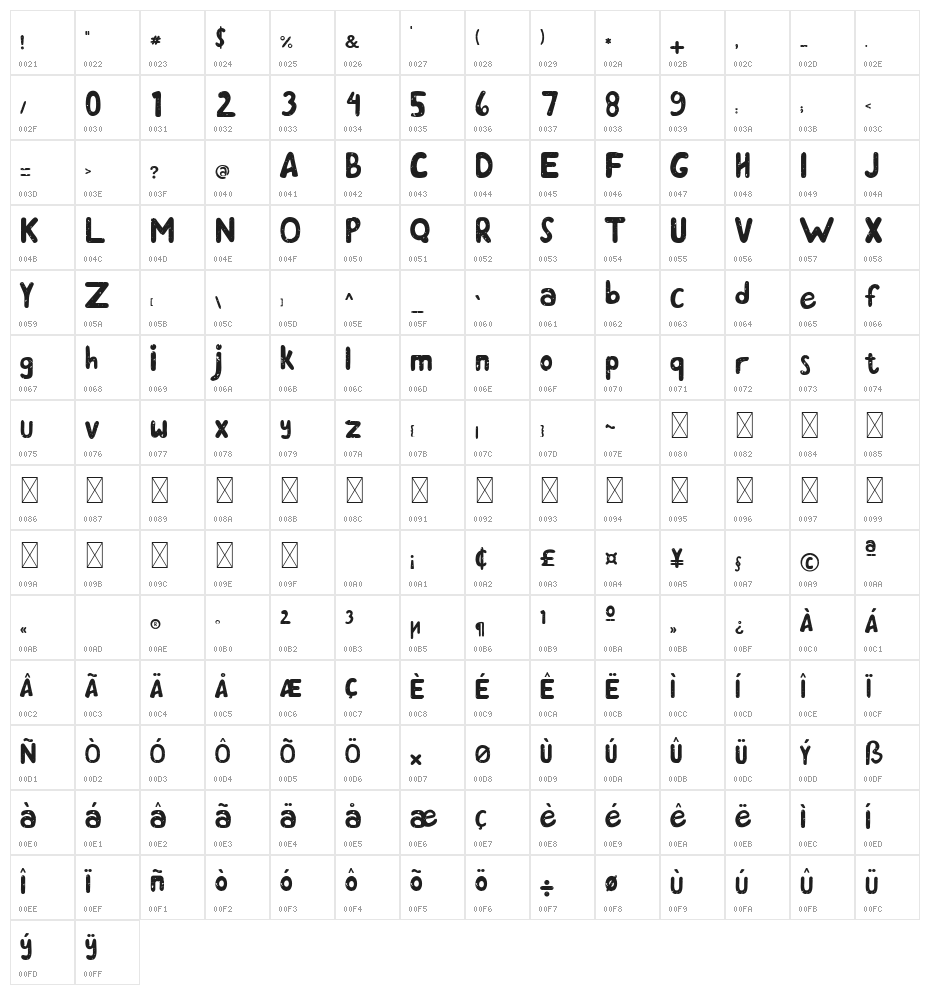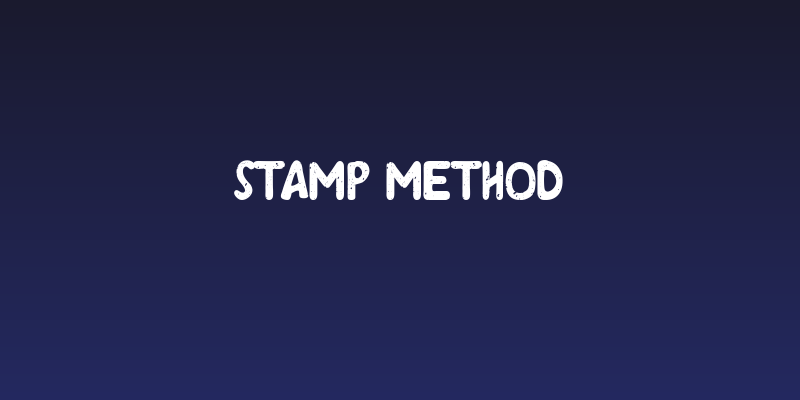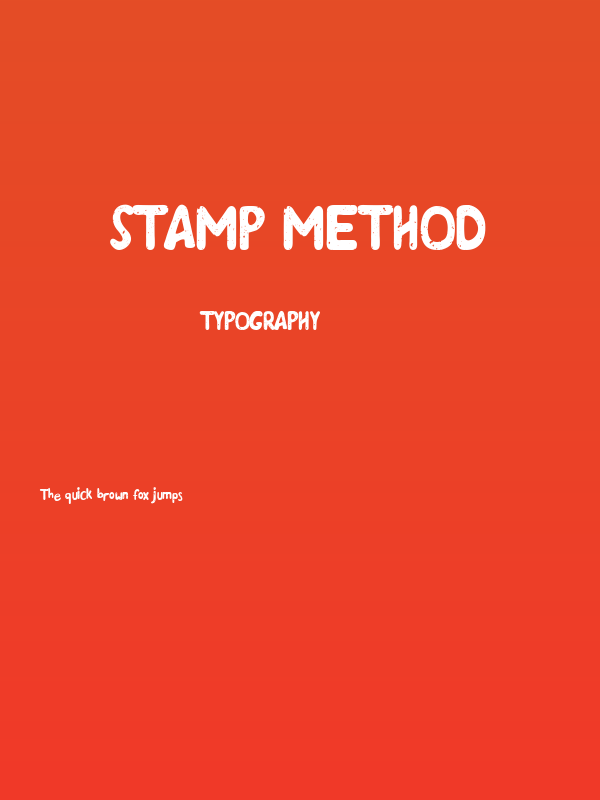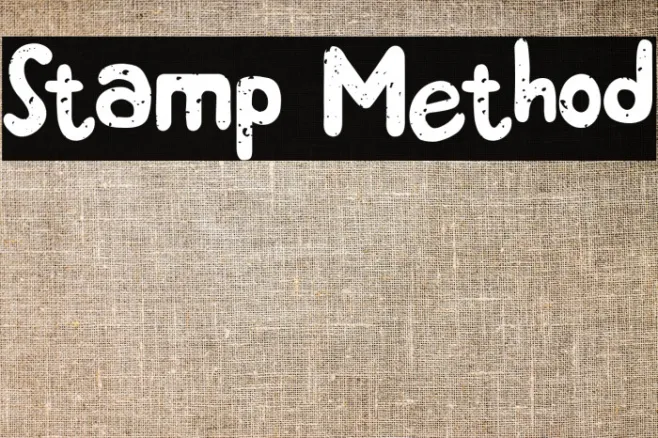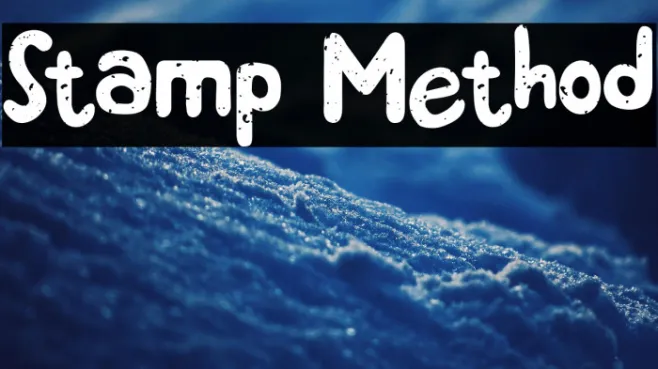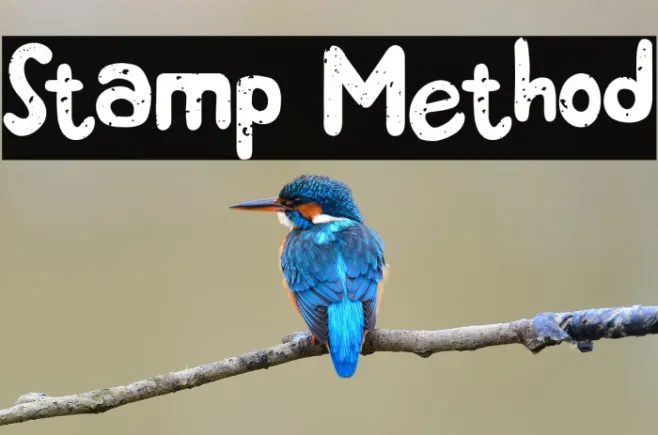
Stamp Method Font
Stamp Method Description
This font features a bold and playful design with a distressed texture that gives it a vintage, worn-out look. The characters are rounded and slightly irregular, adding a handcrafted feel. The uppercase and lowercase letters maintain a consistent style, with a uniform thickness that enhances readability. The numbers and special characters follow the same design principles, making them cohesive with the alphabet. This font's unique texture and bold appearance make it stand out, ideal for projects that require a touch of nostalgia or a rustic aesthetic.